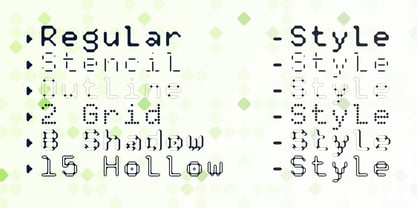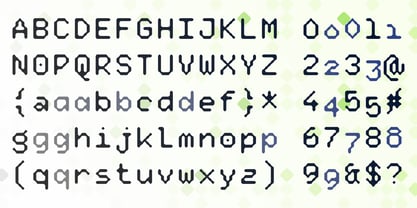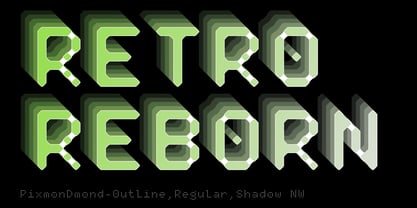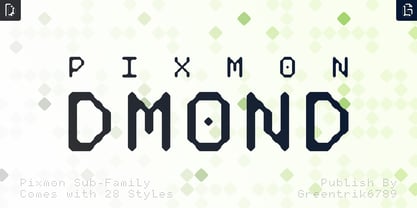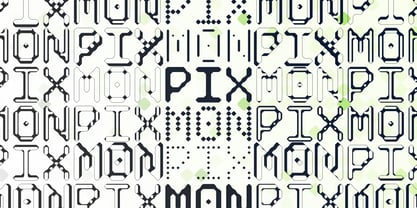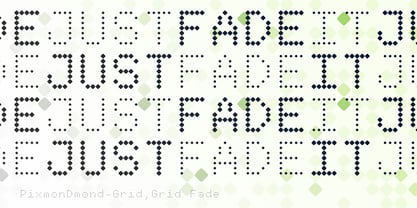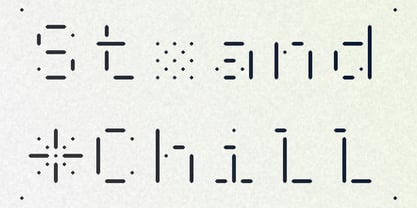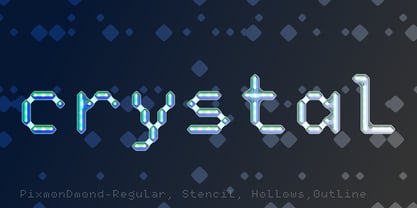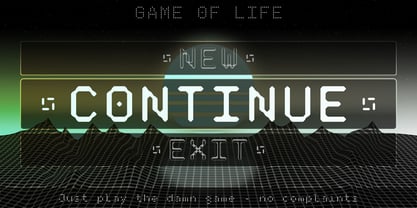
Pixmon Dmond
by Greentrik6789
The Pixmon Dmond Font Family was designed by Tri Kuncoro and published by Greentrik6789. Pixmon Dmond contains 56 styles and family package options. More about this family
Pixmon Dmond — a futuristic modular display font forged from the essence of pixel geometry. Inspired by retro grids and digital precision, it bridges design aesthetics with a clean, modern edge. Perfect for tech brands, game titles, posters, and experimental visuals, Pixmon Dmond offers 28 styles ranging from Outline to Shadow — all unified under one geometric DNA.
Designers: Tri Kuncoro
Foundry: Greentrik6789
I'm Tri Kuncoro, a type designer from a small town in Central Java, Indonesia. As the founder and creative mind behind Greentrik6789, I specialize in crafting bold, expressive display fonts tailored for contemporary applications — from logos and posters to impactful branding. My recent releases, such as Super Car (July 19, 2022) and Super Car Variable (November 19, 2024), showcase my commitment to strong aesthetics and versatile functionality, incorporating cutting-edge variable font technology. Other standout creations like Standhill, Moggen, Rise, and Ragiel exemplify my unwavering dedication to form, rhythm, and visual impact, making Greentrik6789 a unique player in the type design industry.